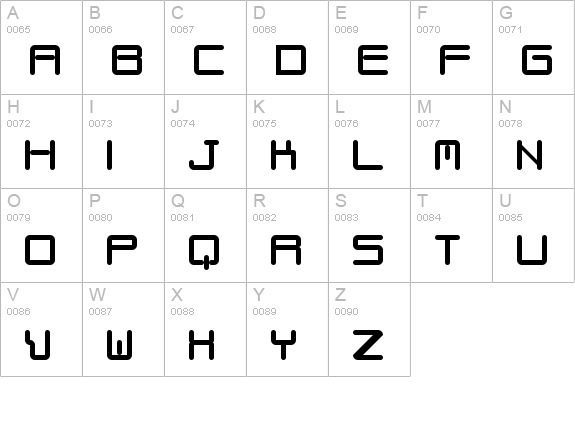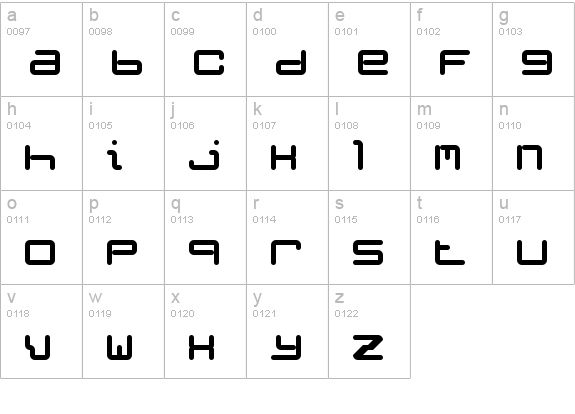
Weird Science NBP Regular is the standard, neutral variant in the Weird typeface family \xE2\x80\x94 well suited to general body text, paragraphs, and standard typographic work.
Weird Science NBP Regular font is a unique and intriguing typeface that will add a touch of quirkiness to any design project. With its unconventional letterforms and playful aesthetic, this font is perfect for those looking to make a bold statement. The irregular shapes and unexpected angles of Weird Science NBP Regular font make it stand out from the crowd, grabbing attention and sparking curiosity. Its whimsical charm is sure to captivate viewers and leave a lasting impression. Not only does Weird Science NBP Regular font offer a distinctive and eye-catching design, but it is also available for free download at FontsMarket.com. This means that you can add this one-of-a-kind font to your collection without any cost. Whether you are a professional designer or a hobbyist, having access to high-quality fonts like Weird Science NBP Regular can greatly enhance your creative projects. With its wide range of potential applications, Weird Science NBP Regular font is suitable for various design projects, including posters, logos, packaging, and more. Its versatility allows you to experiment and explore different visual concepts, pushing the boundaries of traditional design. So why wait? Download Weird Science NBP Regular font for free at FontsMarket.com and let your imagination run wild. Unleash the power of this captivating typeface and watch as it adds an element of fun and intrigue to your next design endeavor.